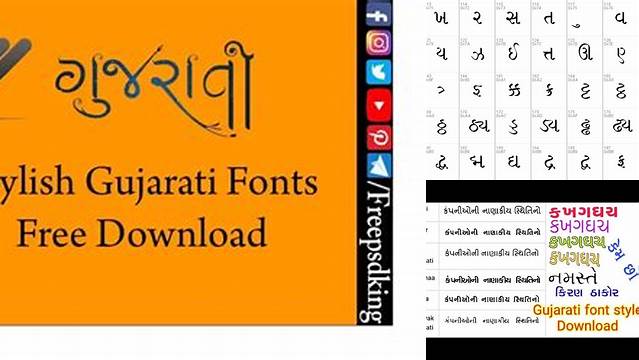
Hey guys, looking for some awesome Gujarati fonts to spice up your designs or documents? You're in the right place! In this ultimate guide, we'll dive deep into the world of Gujarati fonts, providing you with everything you need to know about finding and downloading them for free. We'll cover everything from the basics of Gujarati script to where you can find the best free Gujarati font zip files. So, buckle up and get ready to explore the vibrant world of Gujarati typography!
Why Gujarati Fonts Matter
Okay, let's be real, why should you even care about Gujarati fonts? Well, if you're involved in any kind of design or content creation that involves the Gujarati language, then you absolutely need to know about these fonts. Whether you're a graphic designer creating posters, a writer crafting articles, or just someone who loves to personalize their documents, choosing the right font can make all the difference. It's not just about aesthetics; the right font can make your content more readable, engaging, and even convey the right emotions. Think about it: a playful font can make your message feel more approachable, while a more formal font can give your work a sense of professionalism. And, of course, using the right Gujarati fonts is crucial for anyone targeting the Gujarati-speaking audience. It shows that you care about your audience and are making an effort to communicate in their language, which is a big win in building trust and connection.
Beyond the practical aspects, Gujarati fonts are also a beautiful way to celebrate the rich cultural heritage of Gujarat. The intricate letterforms and unique styles of these fonts are a visual representation of the language itself. Using these fonts is a way of preserving and promoting this heritage, keeping the language alive and thriving in the digital age. Plus, playing around with different Gujarati fonts is just plain fun! There's a wide range of styles, from traditional to modern, so you're sure to find something that fits your personal taste and the message you want to convey. And the best part? You can often find a free Gujarati font zip file to get you started, so you can try out different options without spending a dime. Seriously, it's a win-win situation for both your design needs and cultural appreciation. So, whether you're a seasoned designer or just starting out, exploring the world of Gujarati fonts is an adventure worth taking!